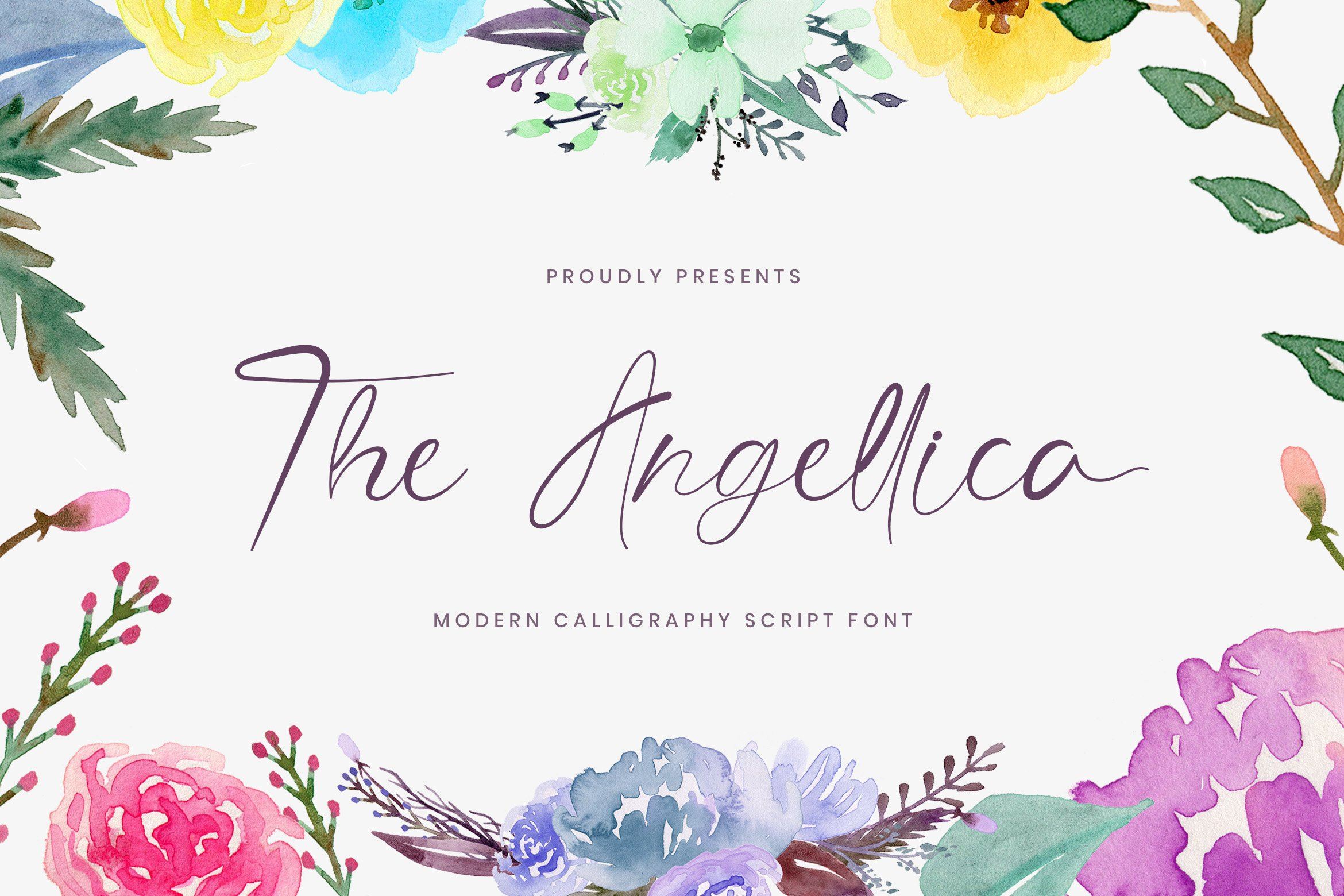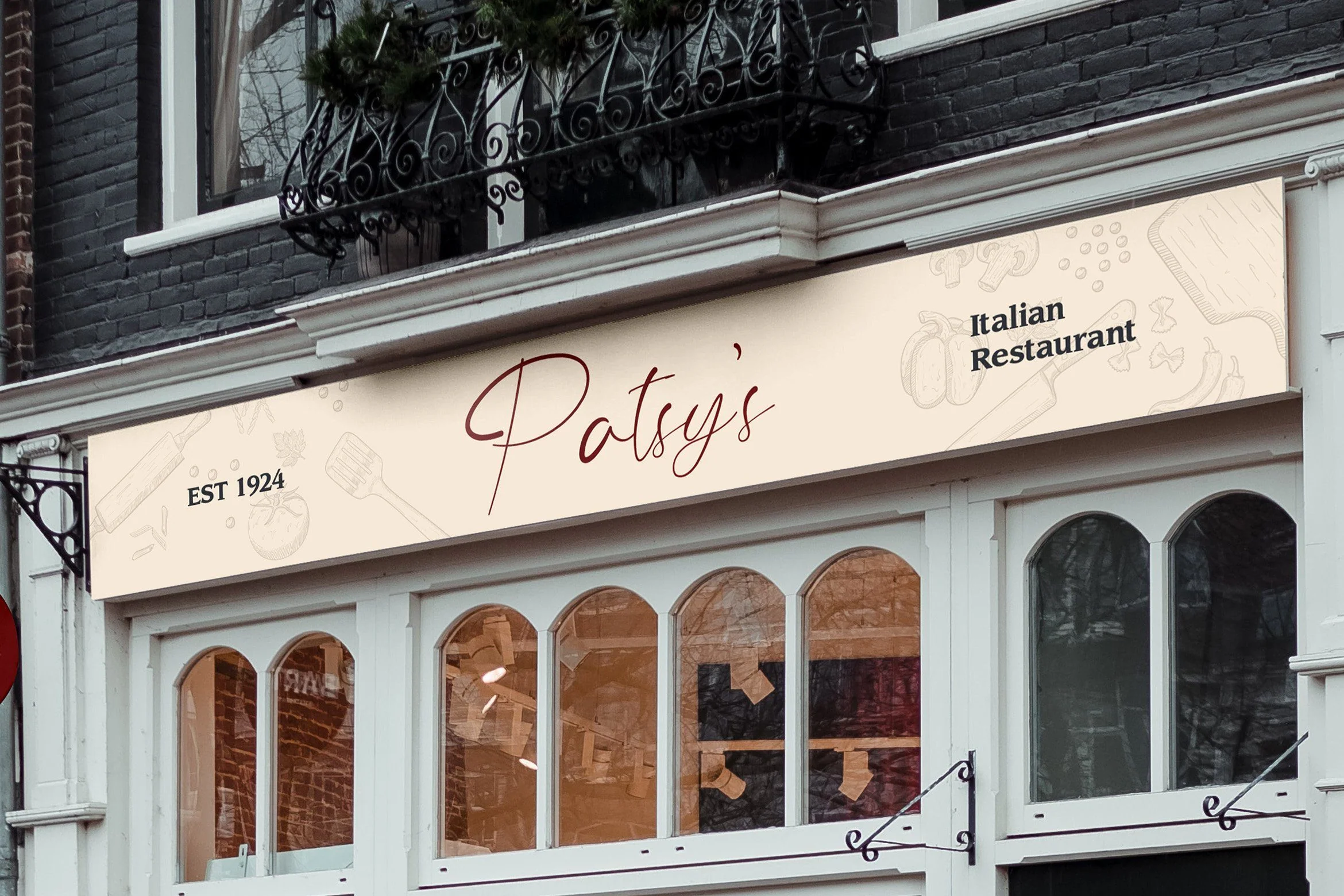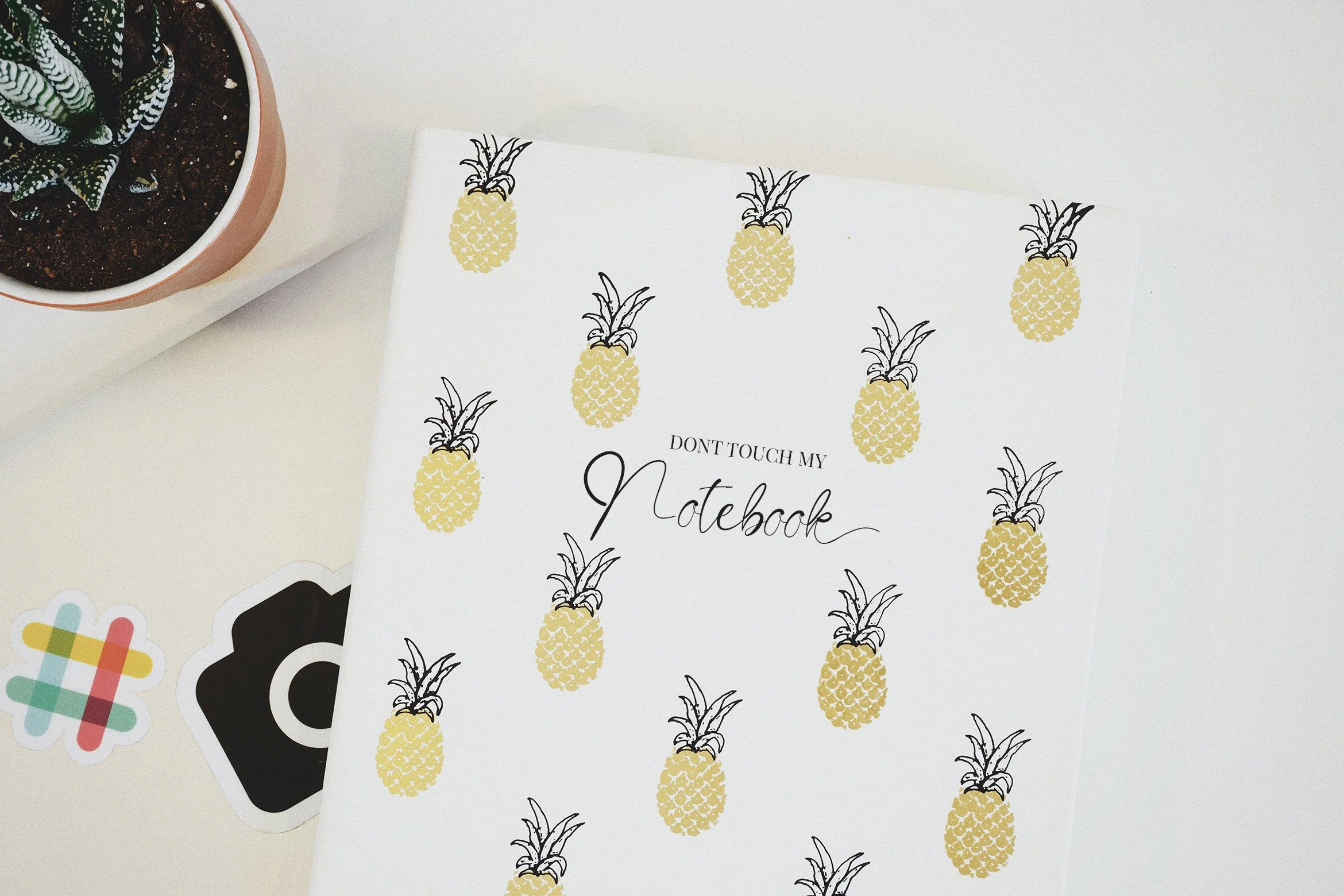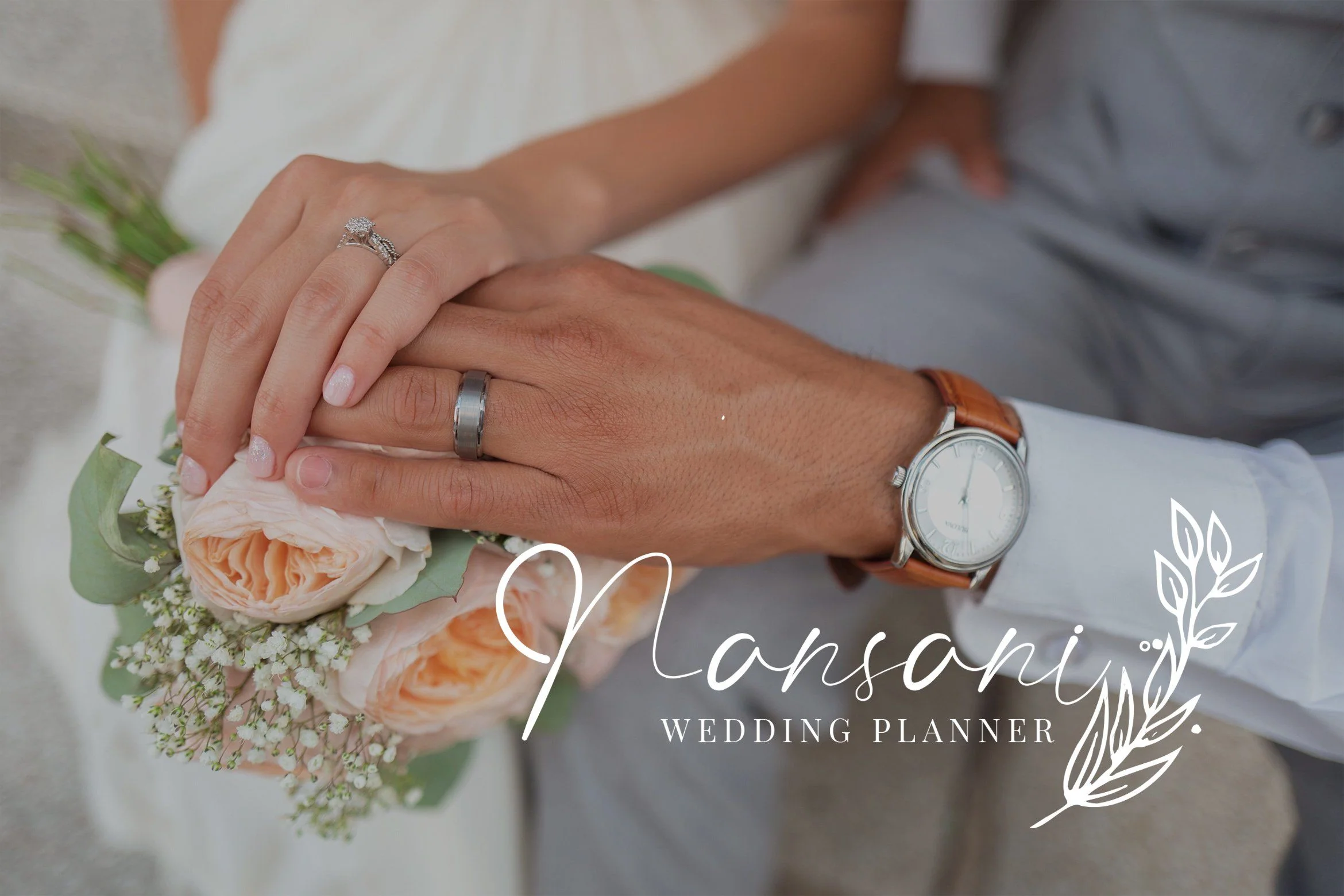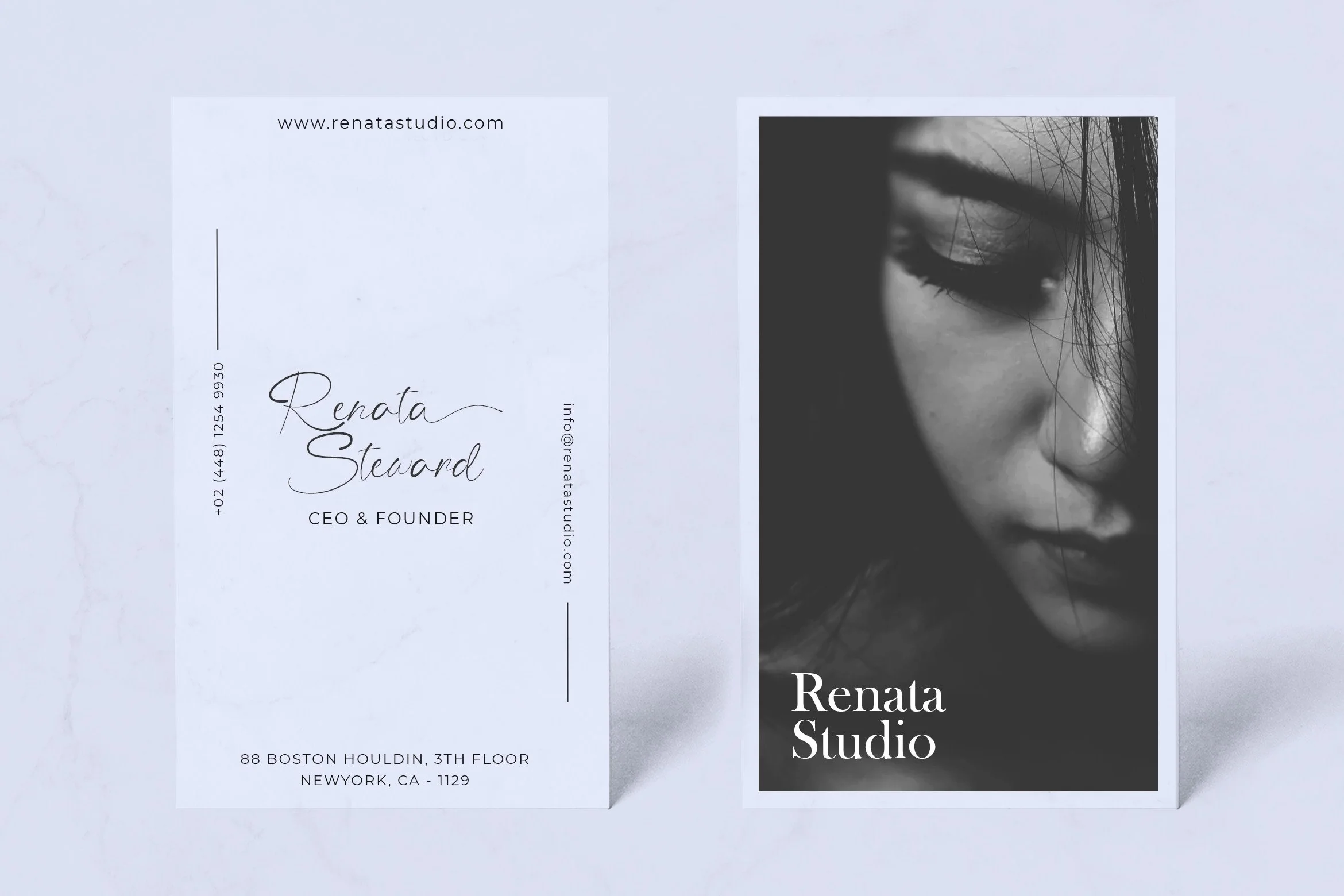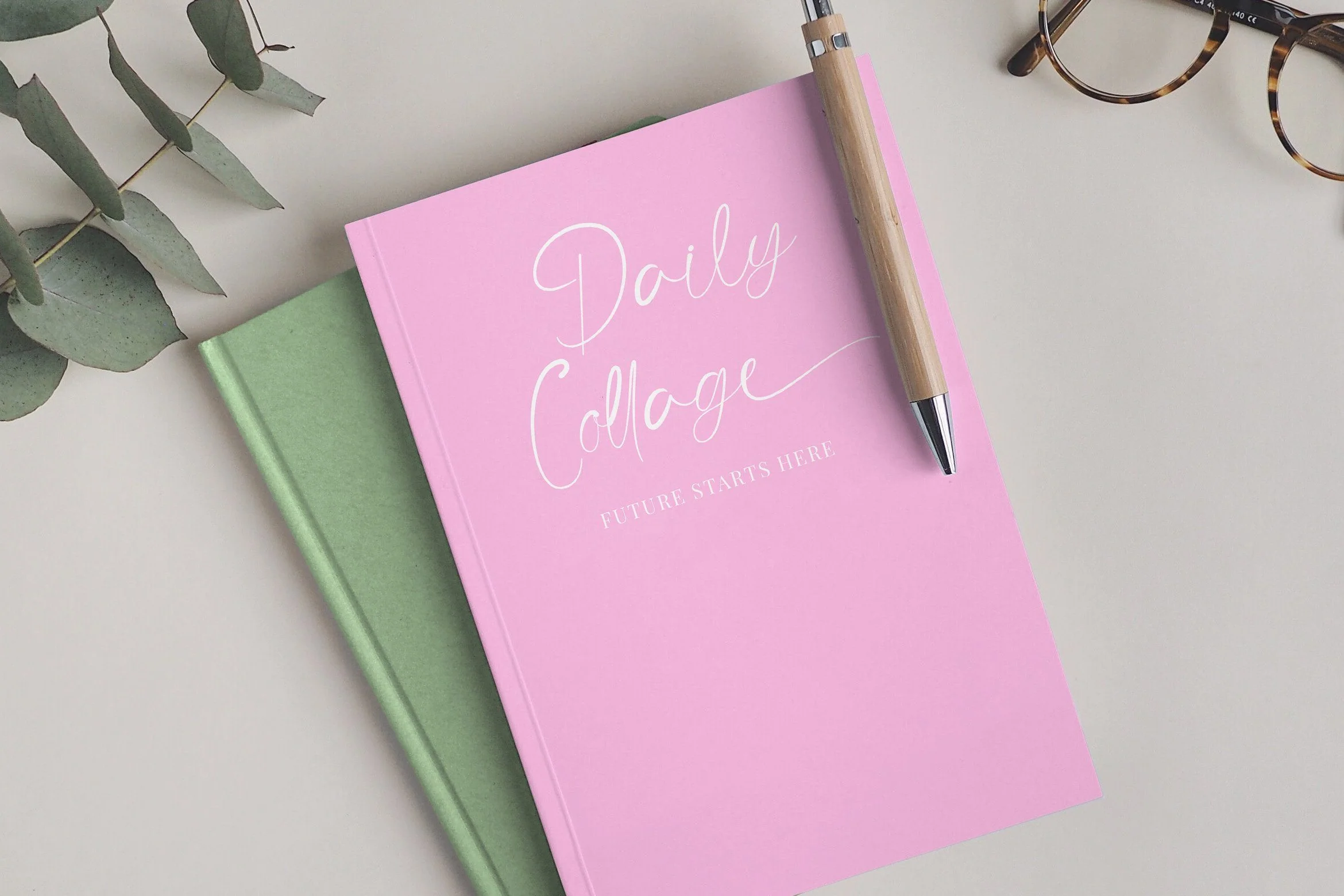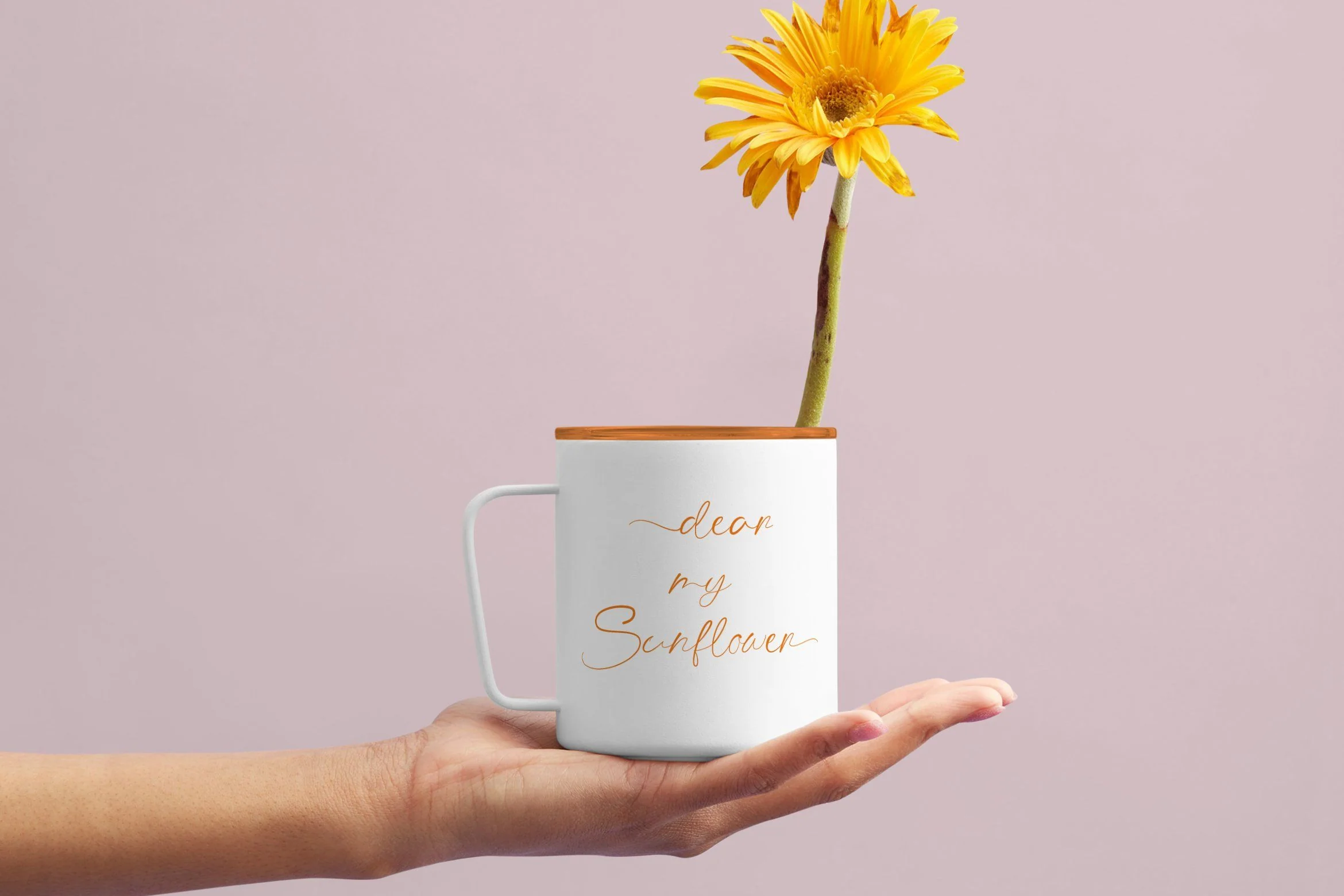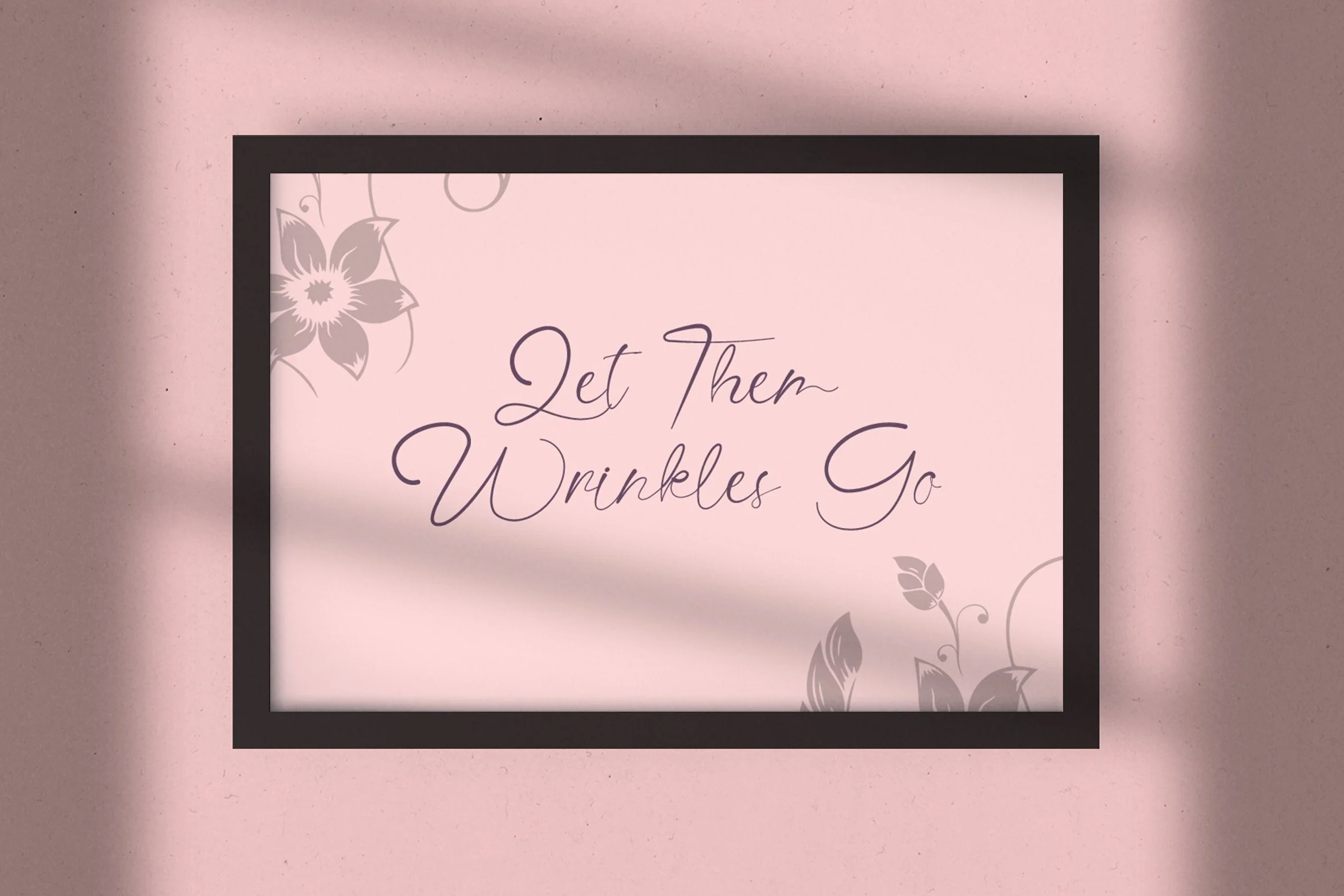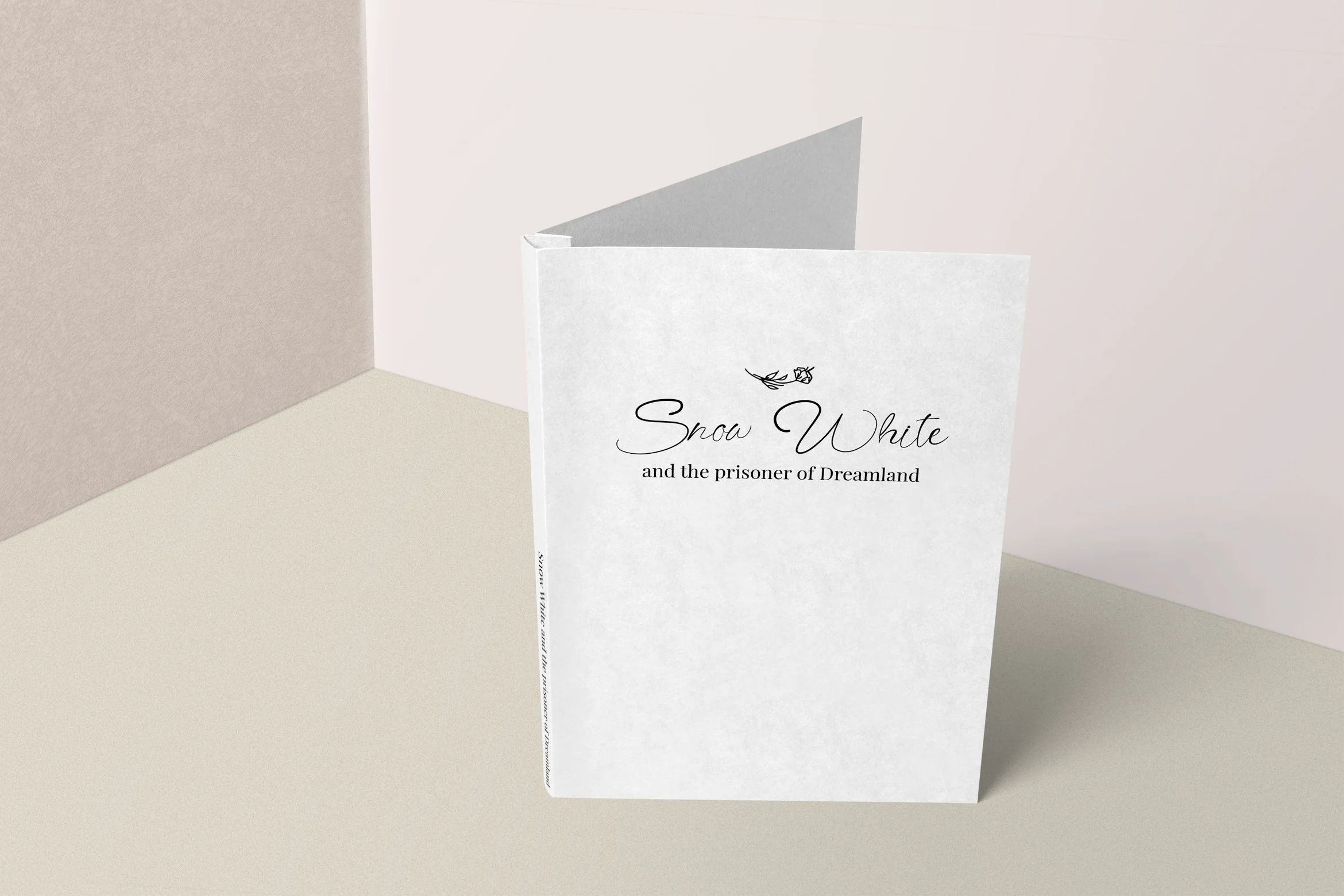
The Angellica - Modern Calligraphy Font
Introducing The Angellica - Modern Calligraphy Font
The Angellica is a Calligraphy Script Font with Casual Style. This font is perfect for fashion brand, wedding invitation, business card, logo brand, signature, and also for calligraphy purpose.
This Font Template contains Classy, Elegant, Creative, Cool and has a Unique Concept.
Introducing The Angellica - Modern Calligraphy Font
The Angellica is a Calligraphy Script Font with Casual Style. This font is perfect for fashion brand, wedding invitation, business card, logo brand, signature, and also for calligraphy purpose.
This Font Template contains Classy, Elegant, Creative, Cool and has a Unique Concept.